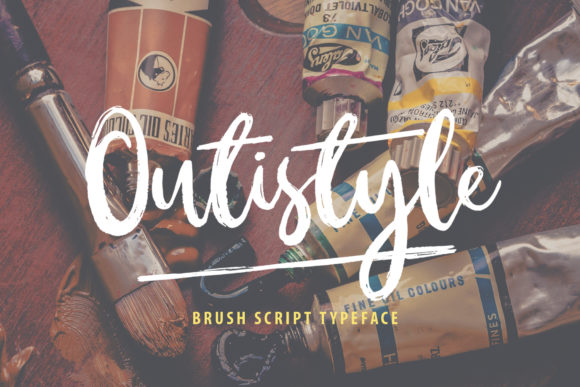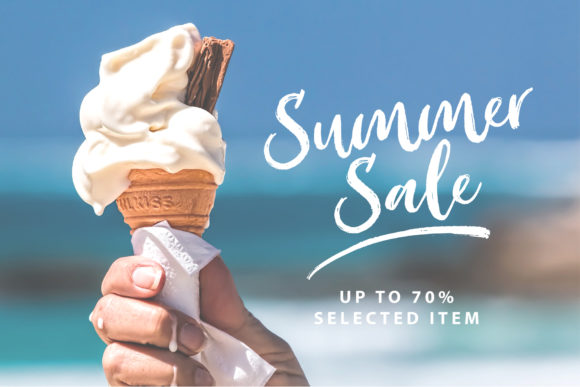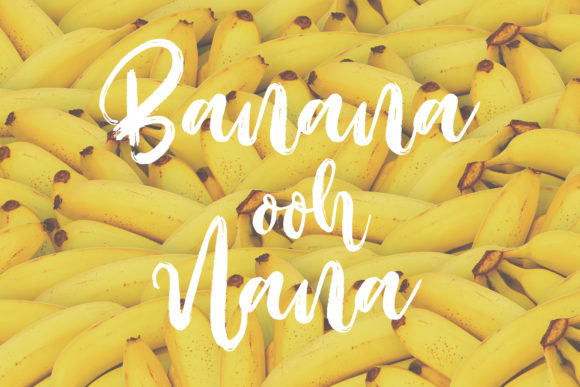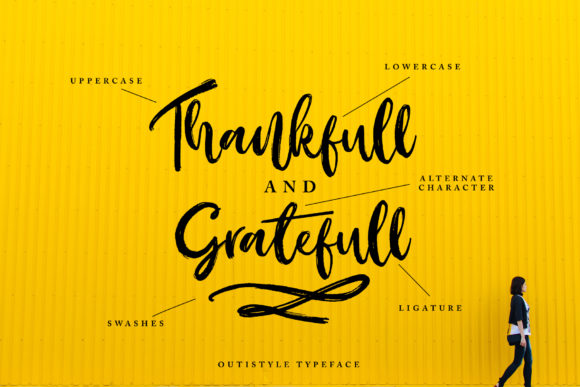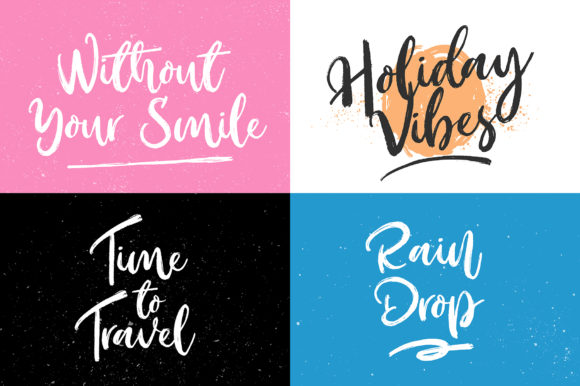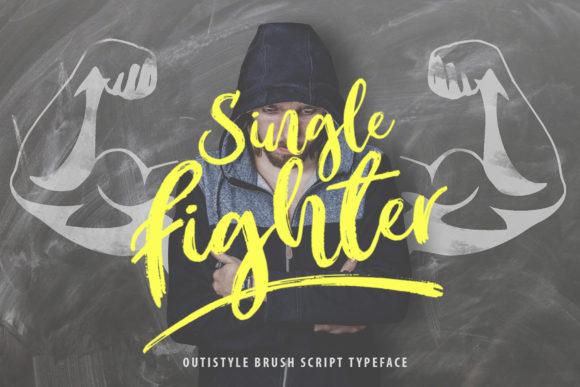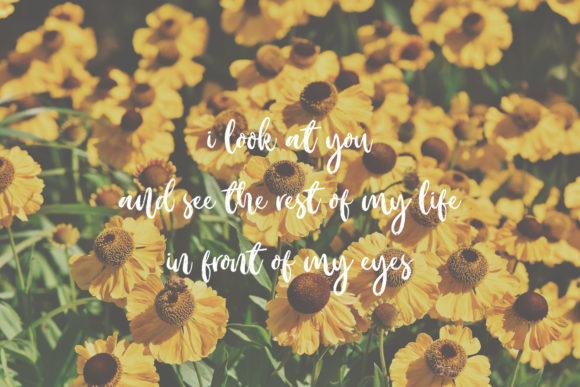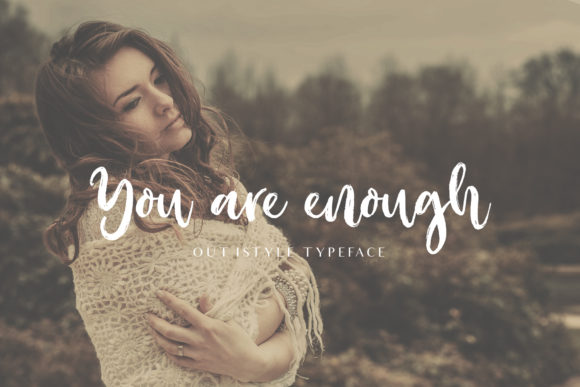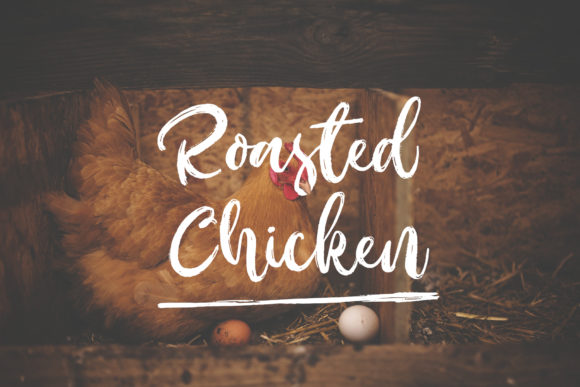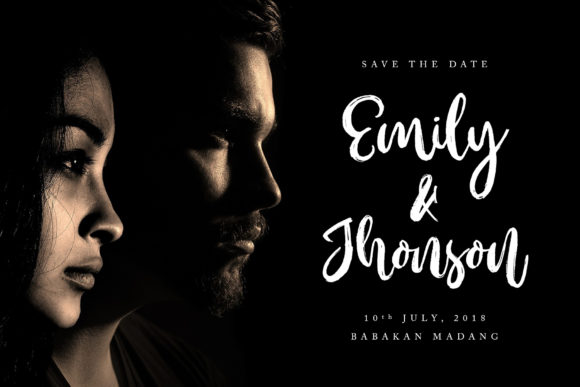
HomeScript FontsOutistyle Font Script Fonts Outistyle Font FacebookXPinterestWhatsApp Outistyle Font Poster 2 Outistyle Font Poster 3 Outistyle Font Poster 4 Outistyle Font Poster 5 Outistyle Font Poster 6 Outistyle Font Poster 7 Outistyle Font Poster 8 Outistyle Font Poster 9 Outistyle Font Poster 10 About Outistyle Font Outistyle is a beautiful and charming handwritten font. It will add a touch of elegance to any design project! DOWNLOAD ON CREATIVE FABRICAThis font is sold and delivered by Creative Fabrica. Font Canyon may earn a commission if you buy through this link. People also explored Hooray Font Hardo Millan Font Sunday Letter Font Christmas Font Mezza Extra Light Font Milleaquen Font Tonthin Font Phosphenes Font 309 0 TagsOutistyle Font Previous articleWildy Sign FontNext articleSughar Font LEAVE A REPLY Cancel reply Comment: Please enter your comment! Name:* Please enter your name here Email:* You have entered an incorrect email address! Please enter your email address here Website: Save my name, email, and website in this browser for the next time I comment. Personal Use Free Mini Story Personal Use Free Read more about this font Hello Sarrah Personal Use Free Read more about this font Masha Song Personal Use Free Read more about this font Axaxax Bold Personal Use Free Read more about this font BLOG Where to Buy American Fonts Online in 2024 Where to Buy American Fonts Online: The Ultimate Guide for 2024 Looking for the perfect American font to elevate your design projects? You're in the... Best Fonts for YouTube Videos: Make Your Thumbnails Stand Out Top 10 Handwritten Fonts That Elevate Your Designs 5 Fonts That Will Dominate Design Trends in 2026